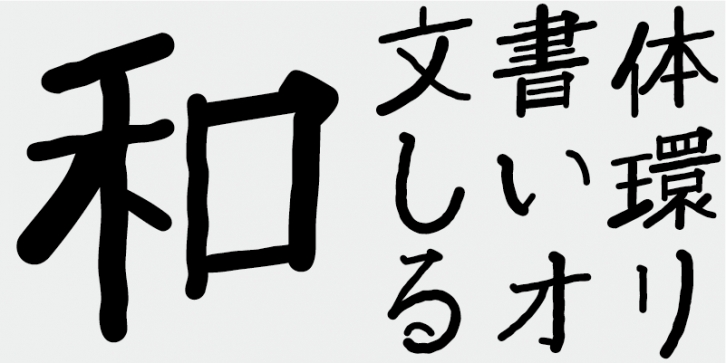
AB-KazunAon_f is effective for a wide range of purposes from body text composition to display typesetting in both horizontal and vertical writing modes, creating a sense of novelty. The typeface is intended to encourage people to communicate with each other in harmonious ways, providing a lively and warm atmosphere.
Its vertical strokes are straight up and down with right-ascending strokes running sideways. The upper and lower components of a character are shifted slightly horizontally, while left and right side components are shifted slightly vertically, so that the character shapes are more widely open.
Stroke widths are carefully adjusted according to a set of rules. Although this typeface is a Mincho style typeface, its subtly varying stroke shapes give it warmth and strength.
This font includes top 1,000 kanji characters chosen from character frequency tables made by newspaper companies, publishing houses and linguistic research institutes, plus 206 kana characters and punctuation marks.
In Japanese font production today, the 7,000 characters in the JIS standard are considered essential. But, do all fonts really need 7,000 characters? In the age of phototypesetting, far fewer characters were needed. FONT1000, a group of independent type designers, started with that simple question. We have selected the minimum 1,000 kanji (ideographic) characters needed for typesetting in Japanese and actively created typefaces and fonts to support it. This 1,000-kanji-character set was selected using character frequency data compiled by newspaper companies, publishing houses and linguistic research organizations, etc., and also includes kana syllabic characters and punctuation marks. FONT1000 was formed in 2001 with 25 designers and 25 typefaces. Today we have 130 typefaces and have grown to include nearly 40 members, making it possible to work on fonts with more characters.